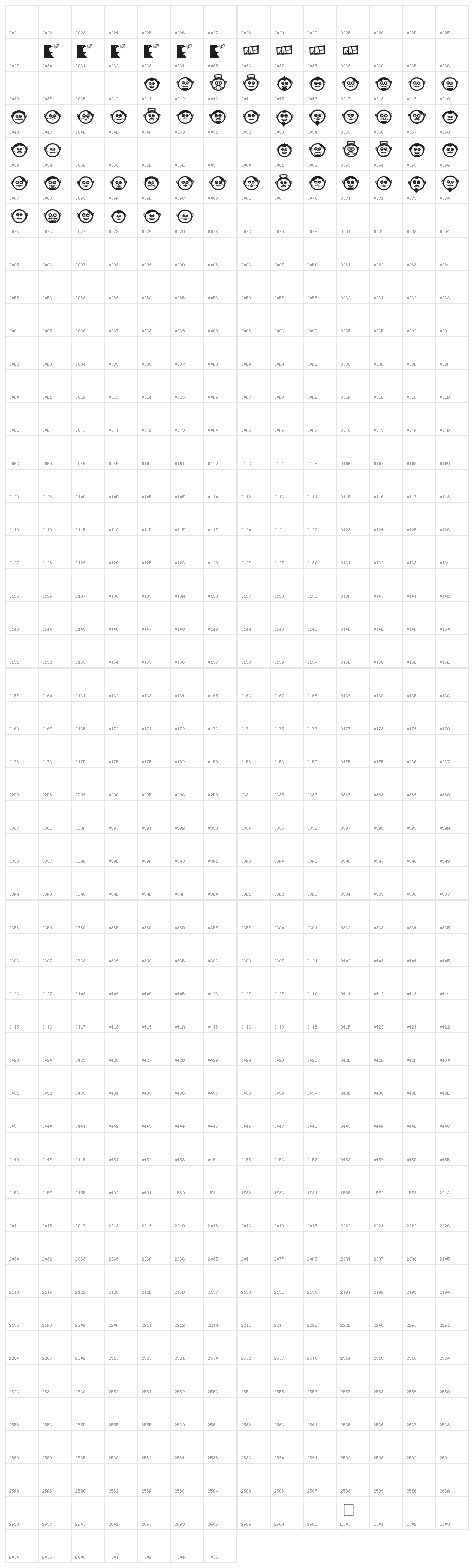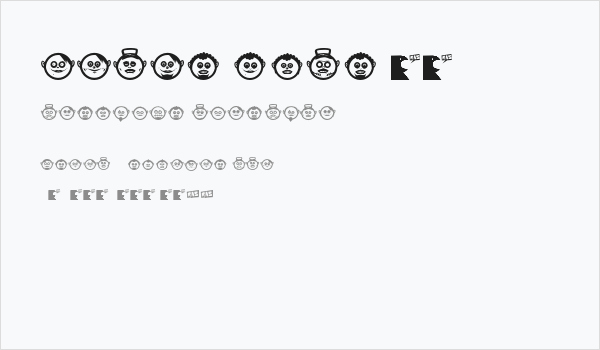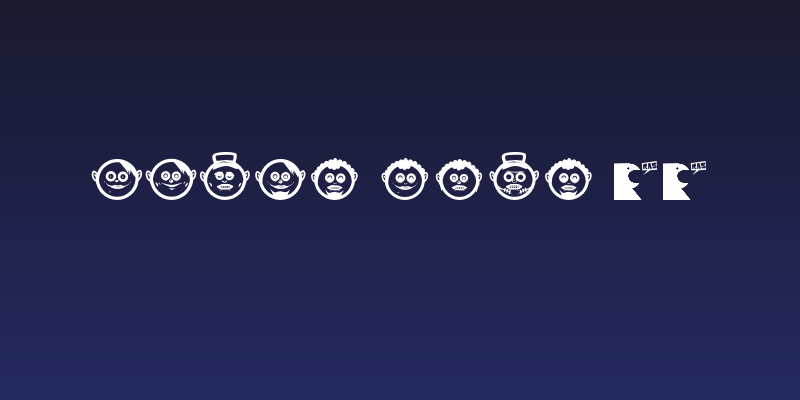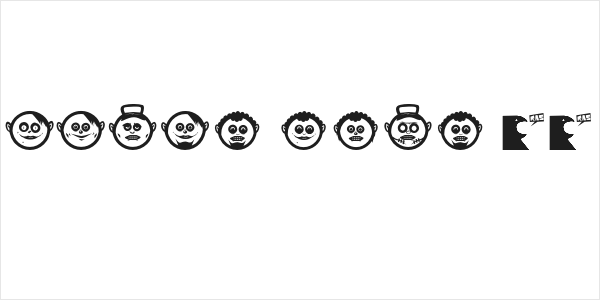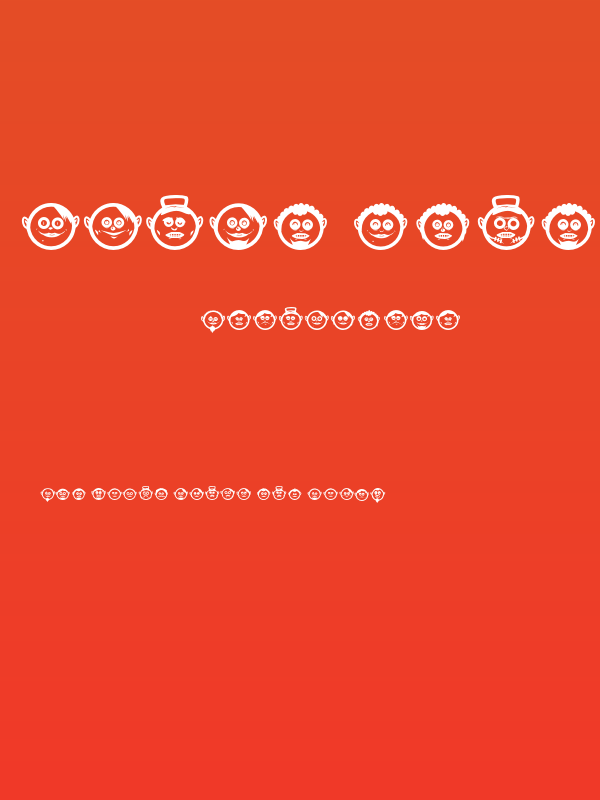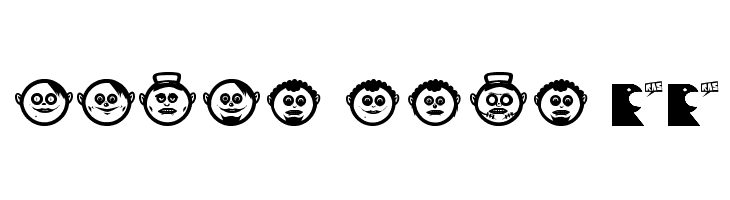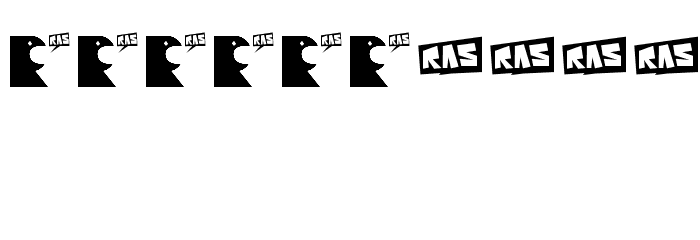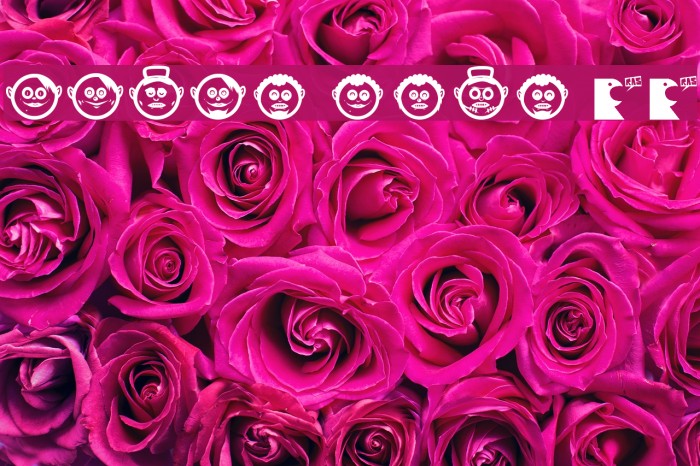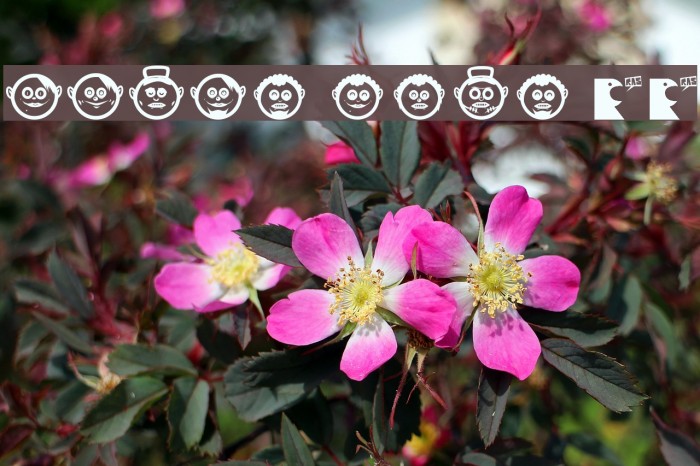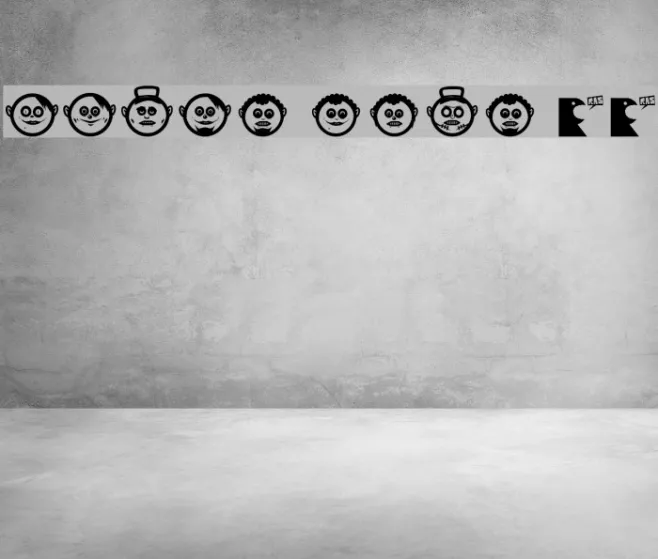
GLOBE FACE 01 Font
GLOBE FACE 01 Description
A playful and decorative font where each character is represented by a unique cartoon face or a bold geometric icon, giving a whimsical and illustrative appearance. The characters are highly stylized and not traditional letterforms, making the set more suitable for graphic or novelty use rather than standard text.
| Overall Style | Decorative, Playful, Cartoonish |
| Use Case | Logos, Posters, Headlines, Themed graphics |
| Proposed Projects | Children's books, party invitations, comic strips, playful branding, educational materials, posters. |